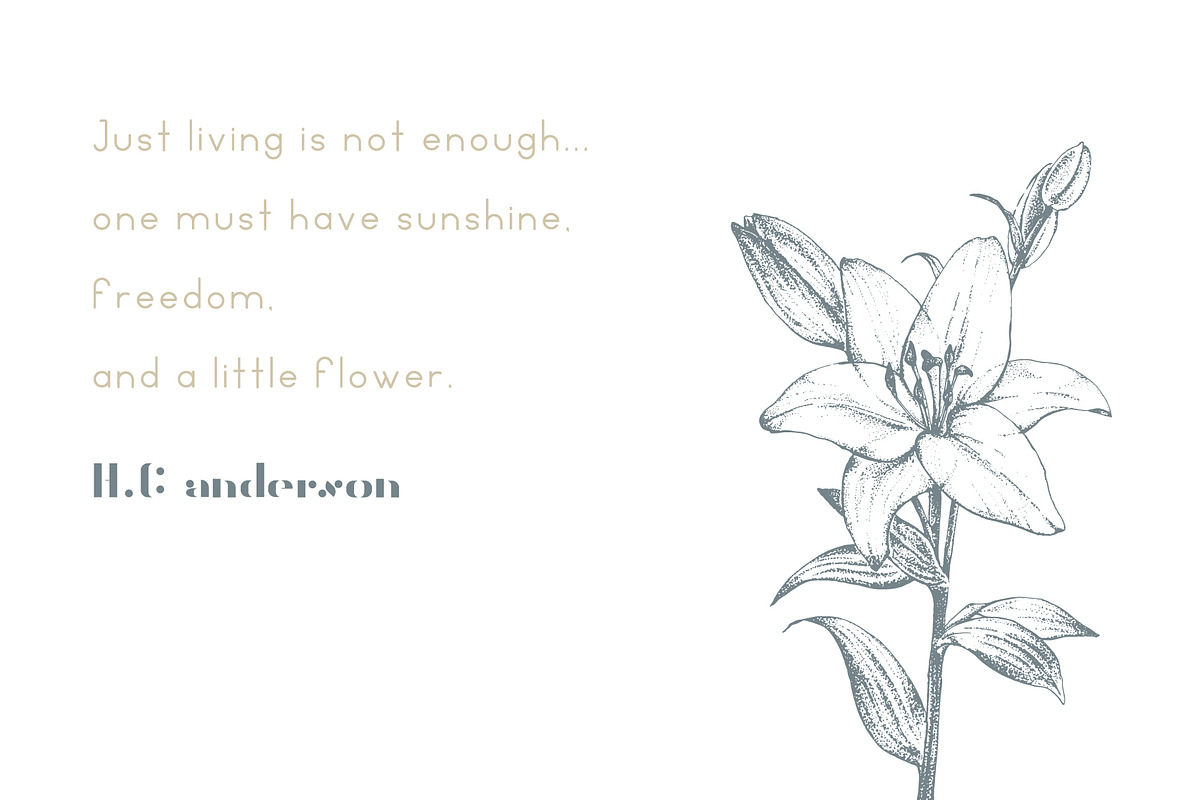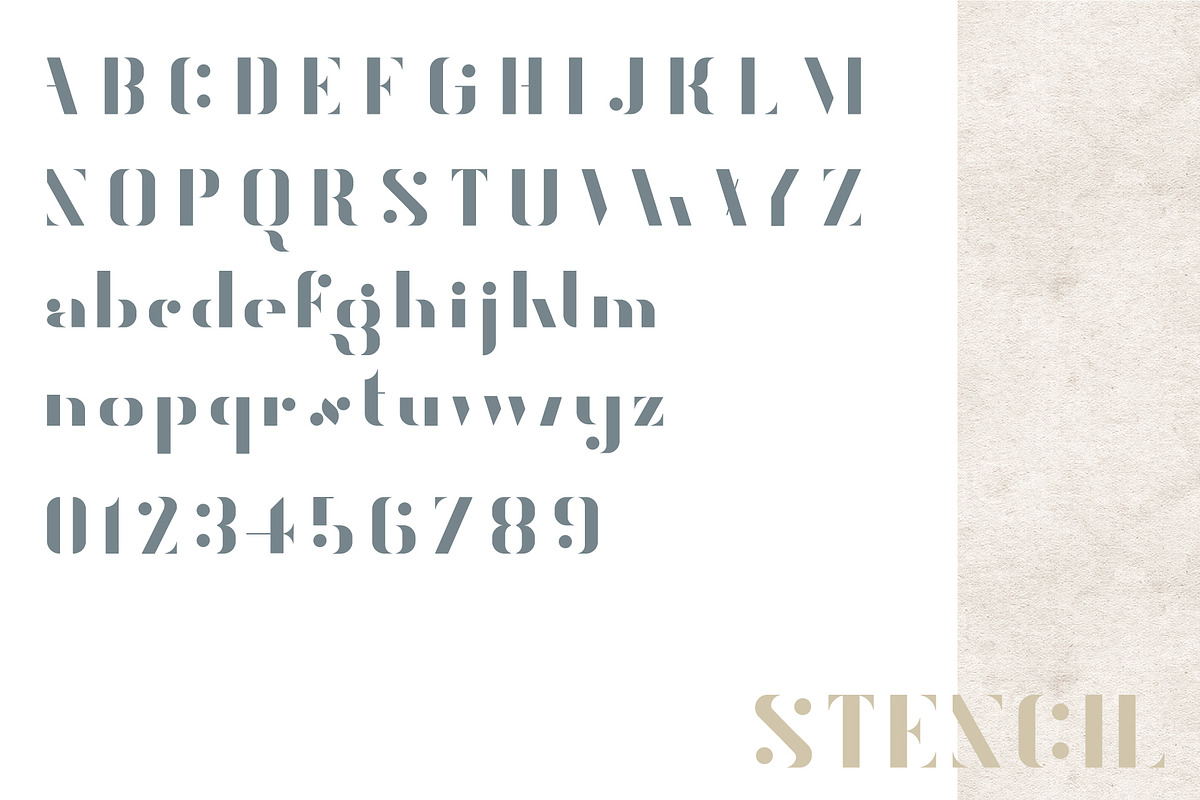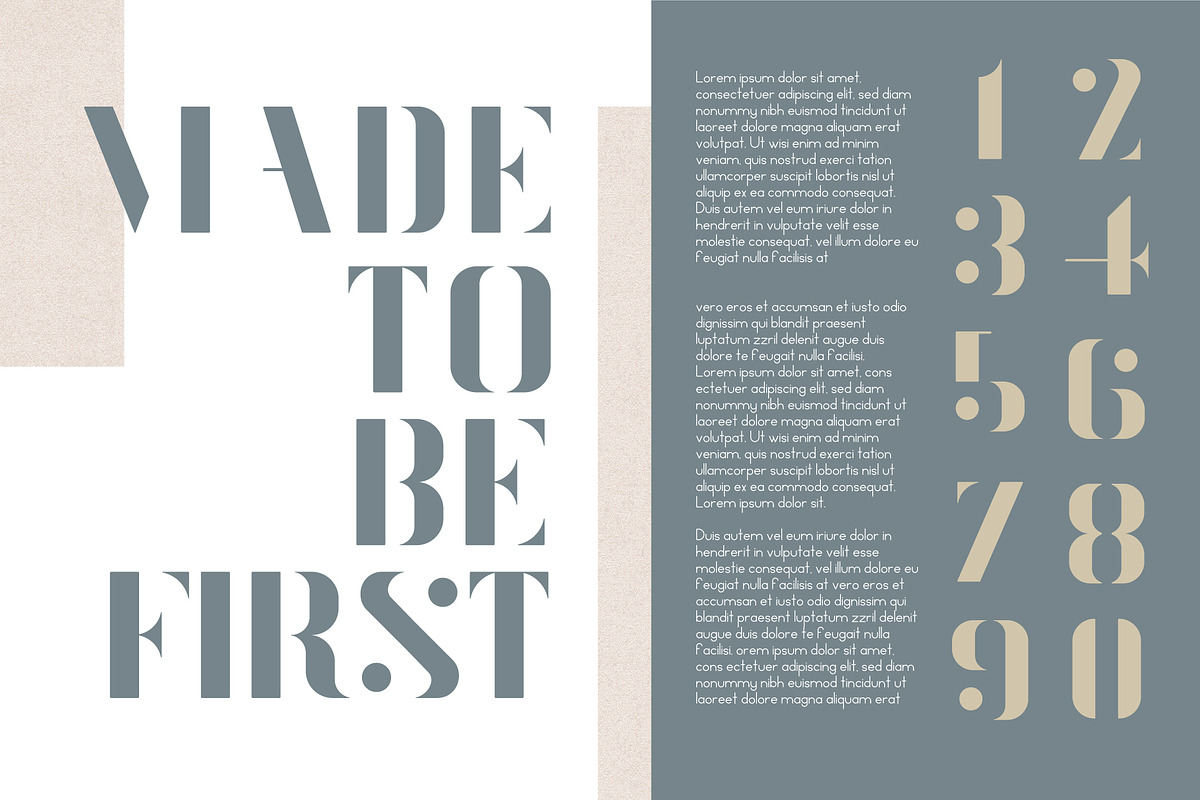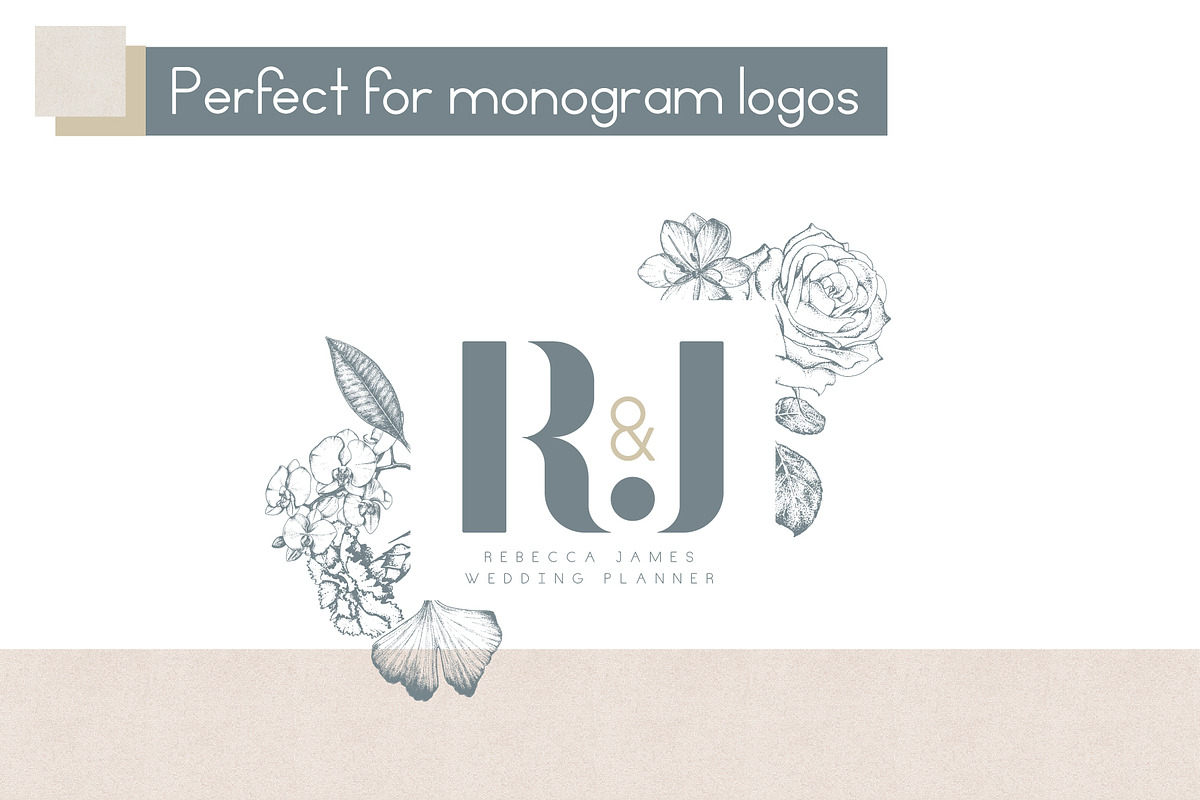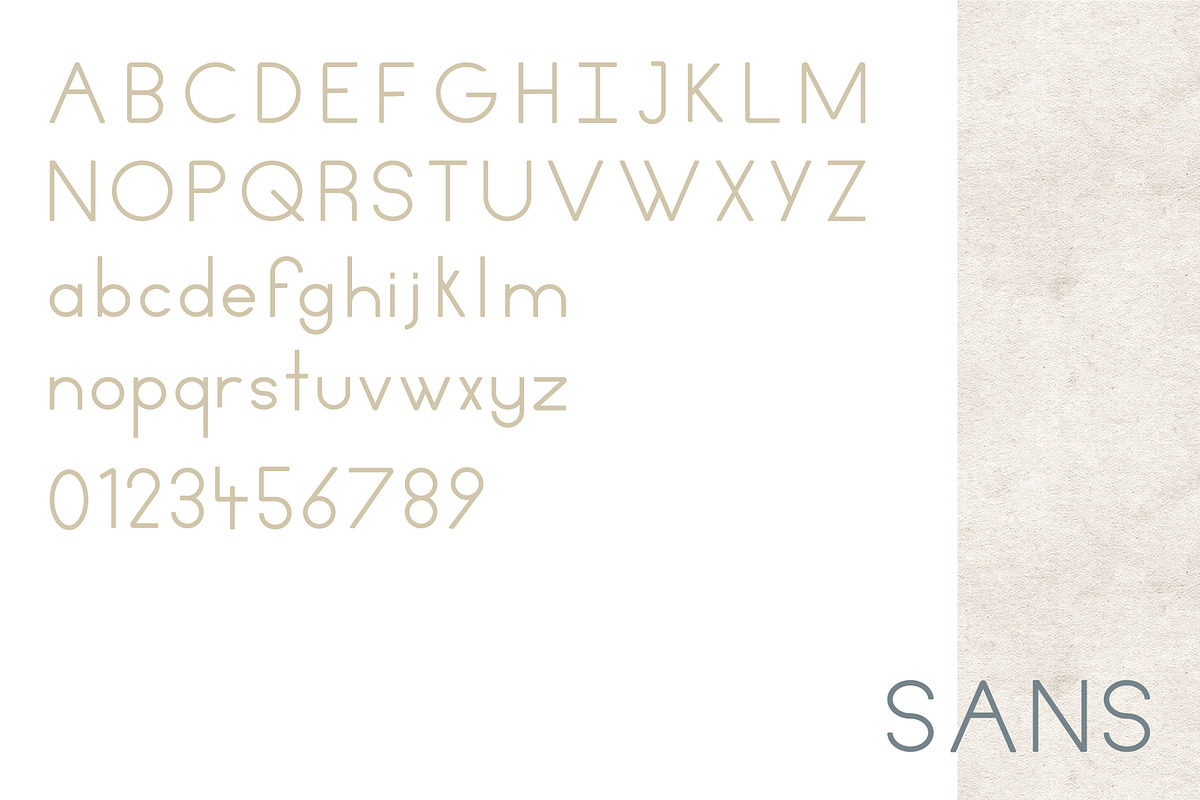
Rhode Font Duo
Rhode is a font duo with a bold logotype stencil font along with a simple sans serif that works great as an accompanying sub headline or bodycopy.
- Rhode Regular
- Rhode Sans